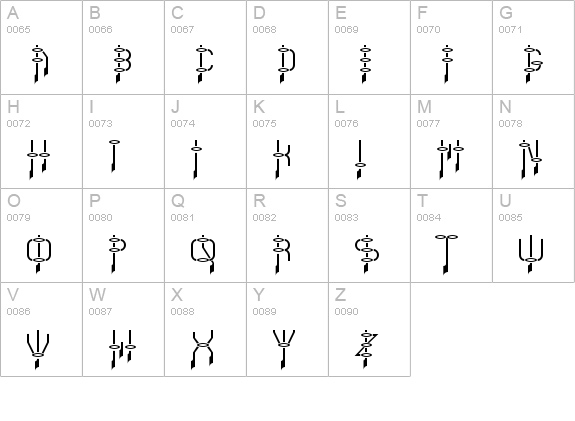
Frazzed Font Details
Introducing Frazzed font - a captivating and dynamic typeface that exudes a sense of energy and creativity. This modern font features unique and edgy letterforms that are perfect for making a bold statement in your designs. Whether you're working on a poster, logo, or branding project, Frazzed font will add a touch of sophistication and flair. What's even better is that Frazzed font is available for free download at FontsMarket.com. Yes, you read that right - this stunning font can be yours at no cost, allowing you to unleash your creativity without any limitations. Don't miss out on the opportunity to add Frazzed font to your font collection and take your designs to the next level. Download it now and let your imagination run wild!